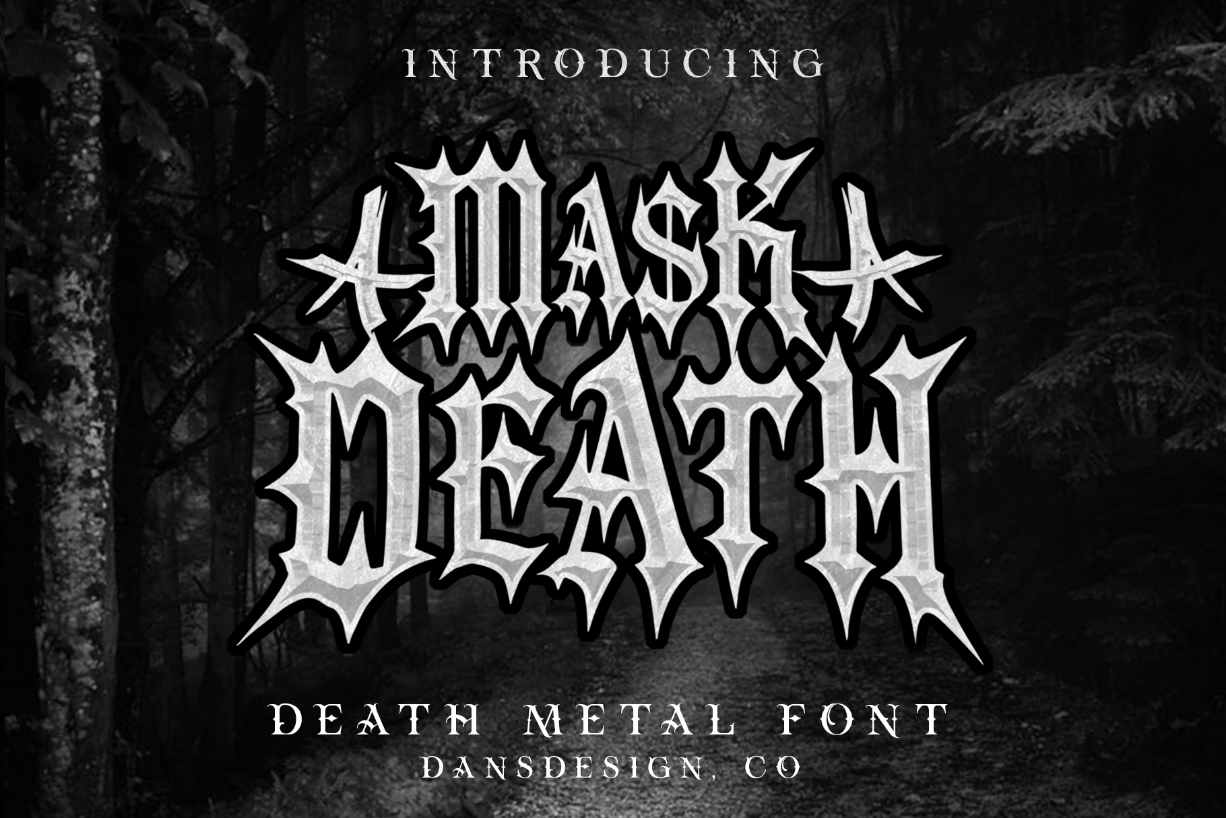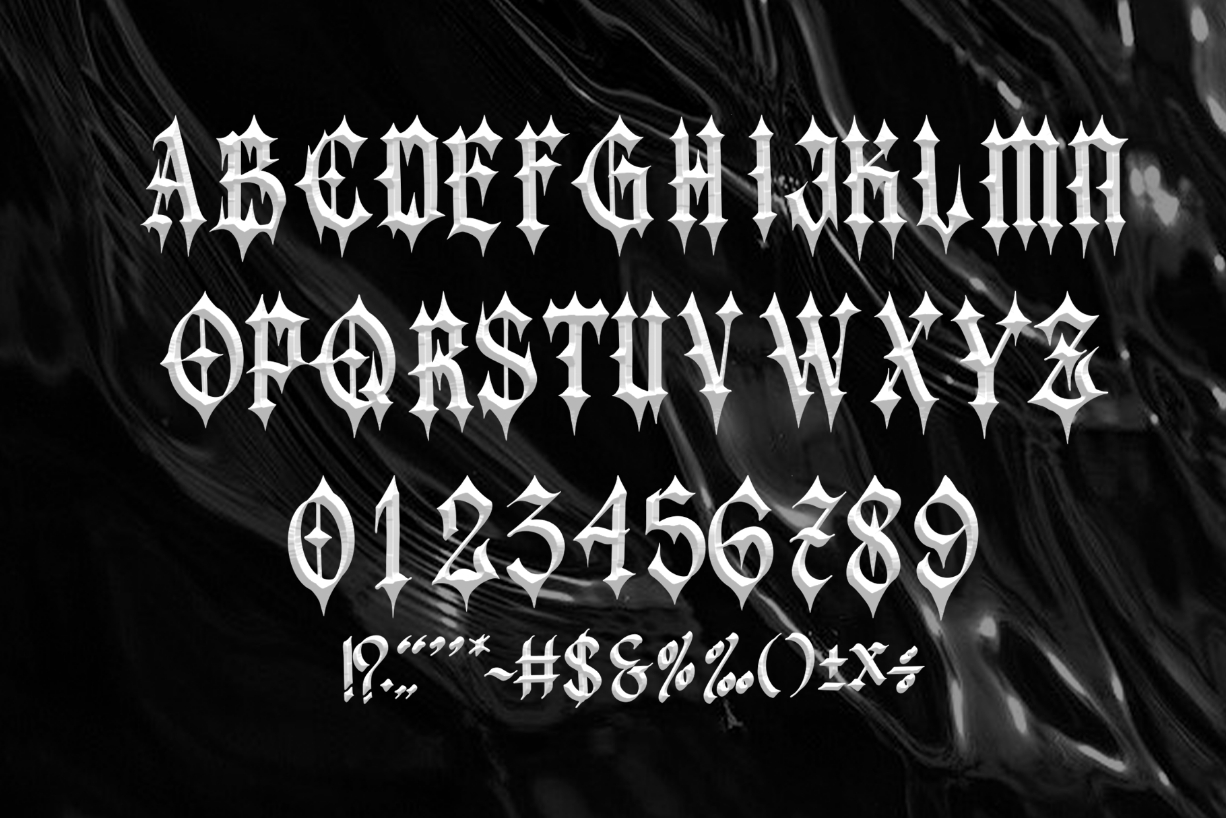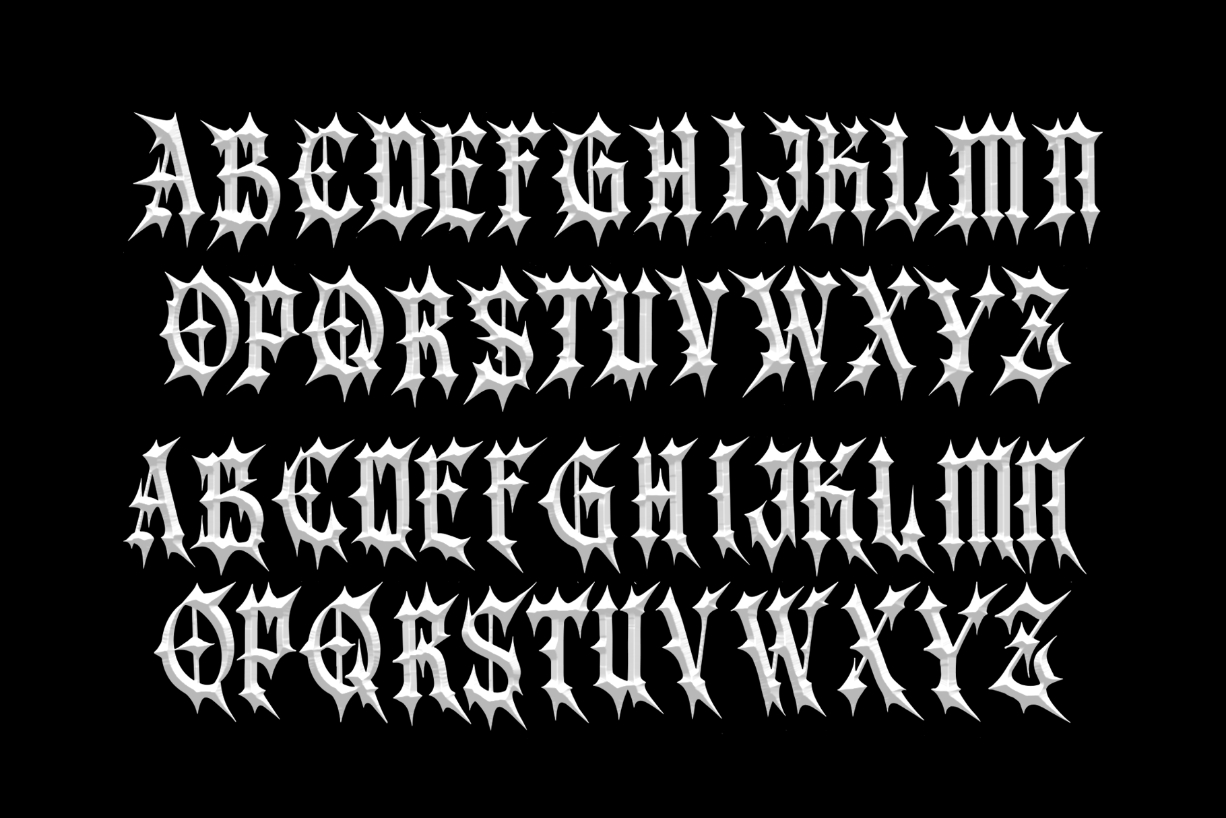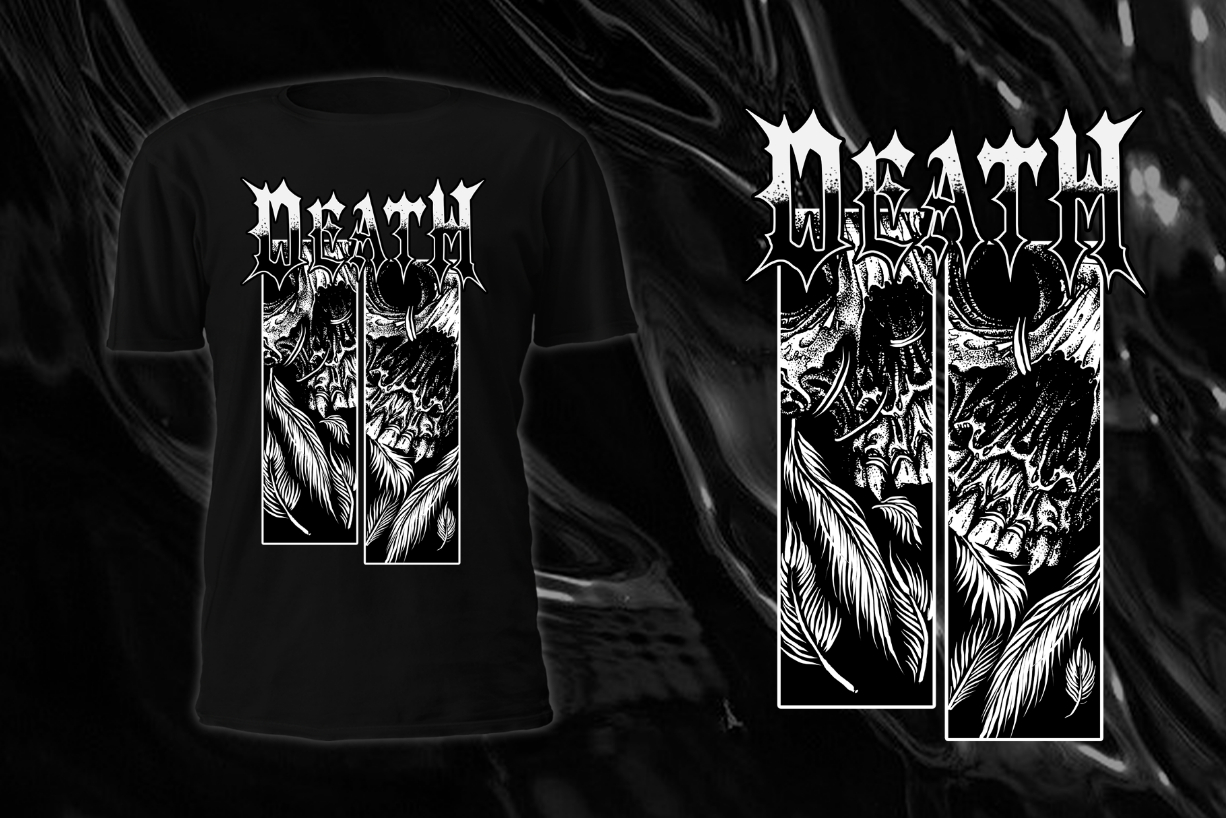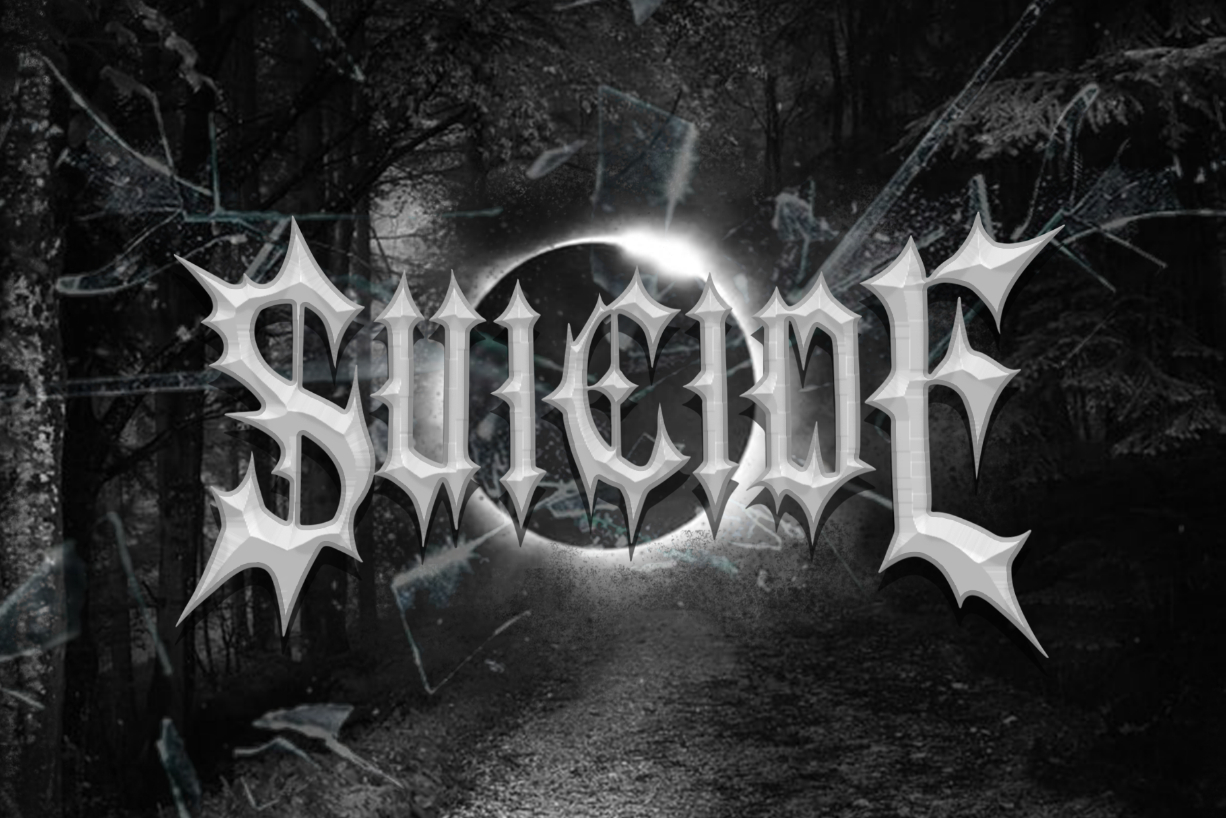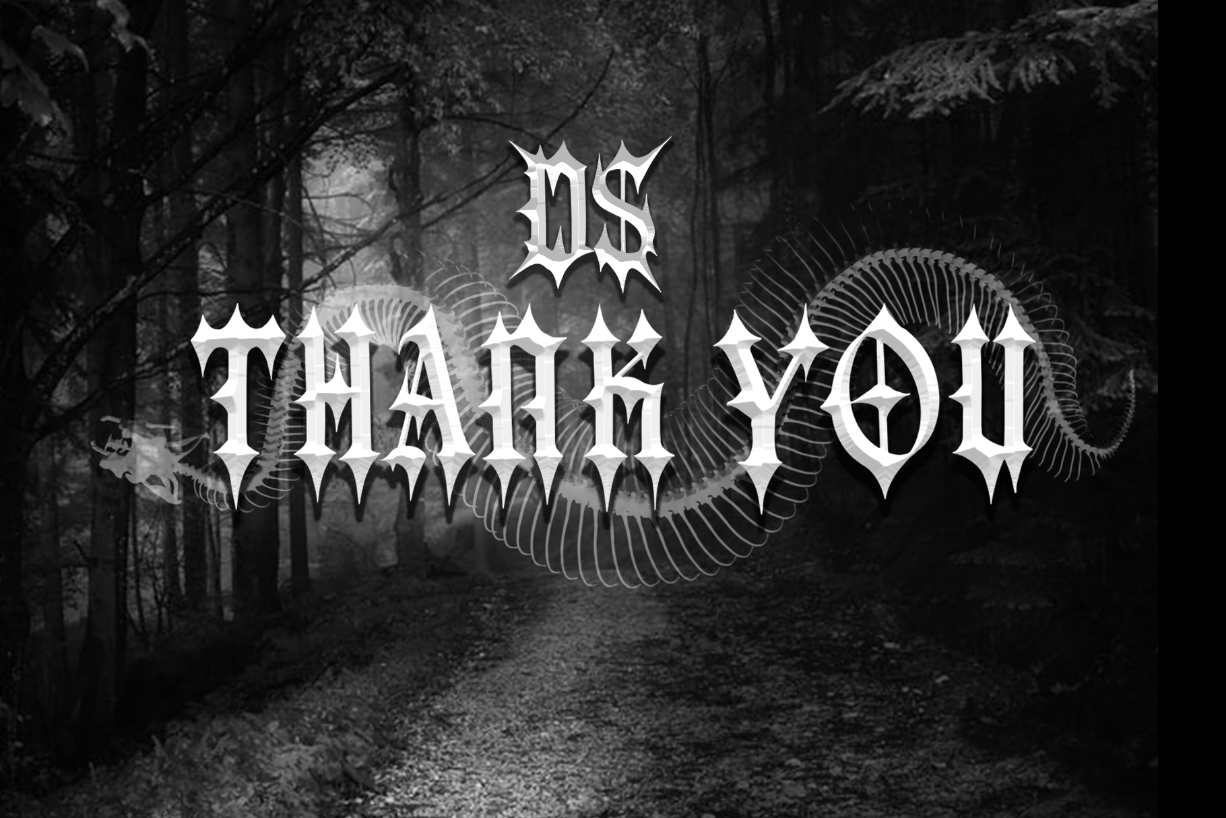
About Mask Death Font
Mask Death is a thick-lettered and spooky blackletter font. It is perfectly suitable for any Halloween-related project or crafty idea! The only limit is your imagination.